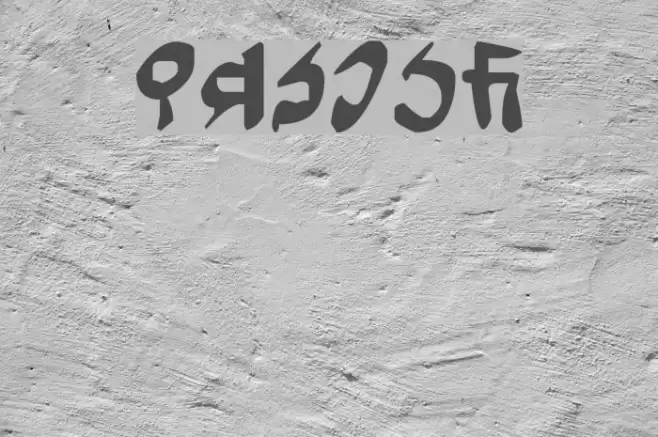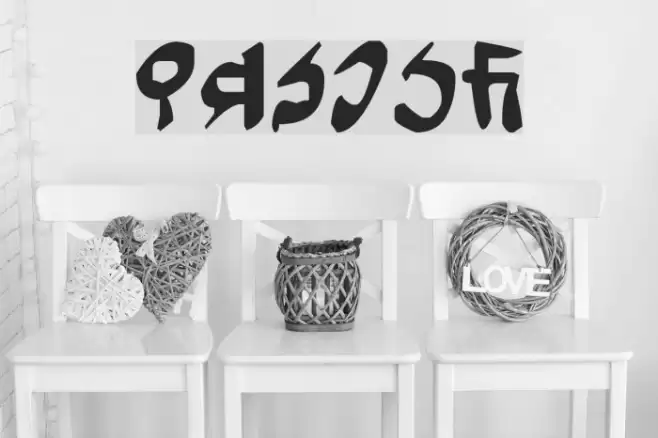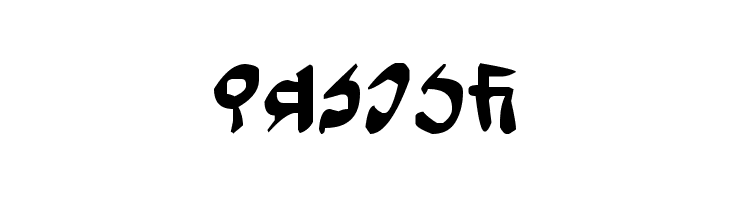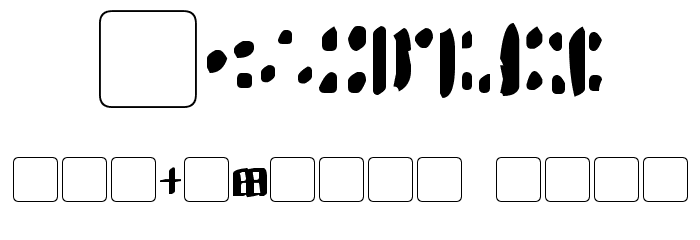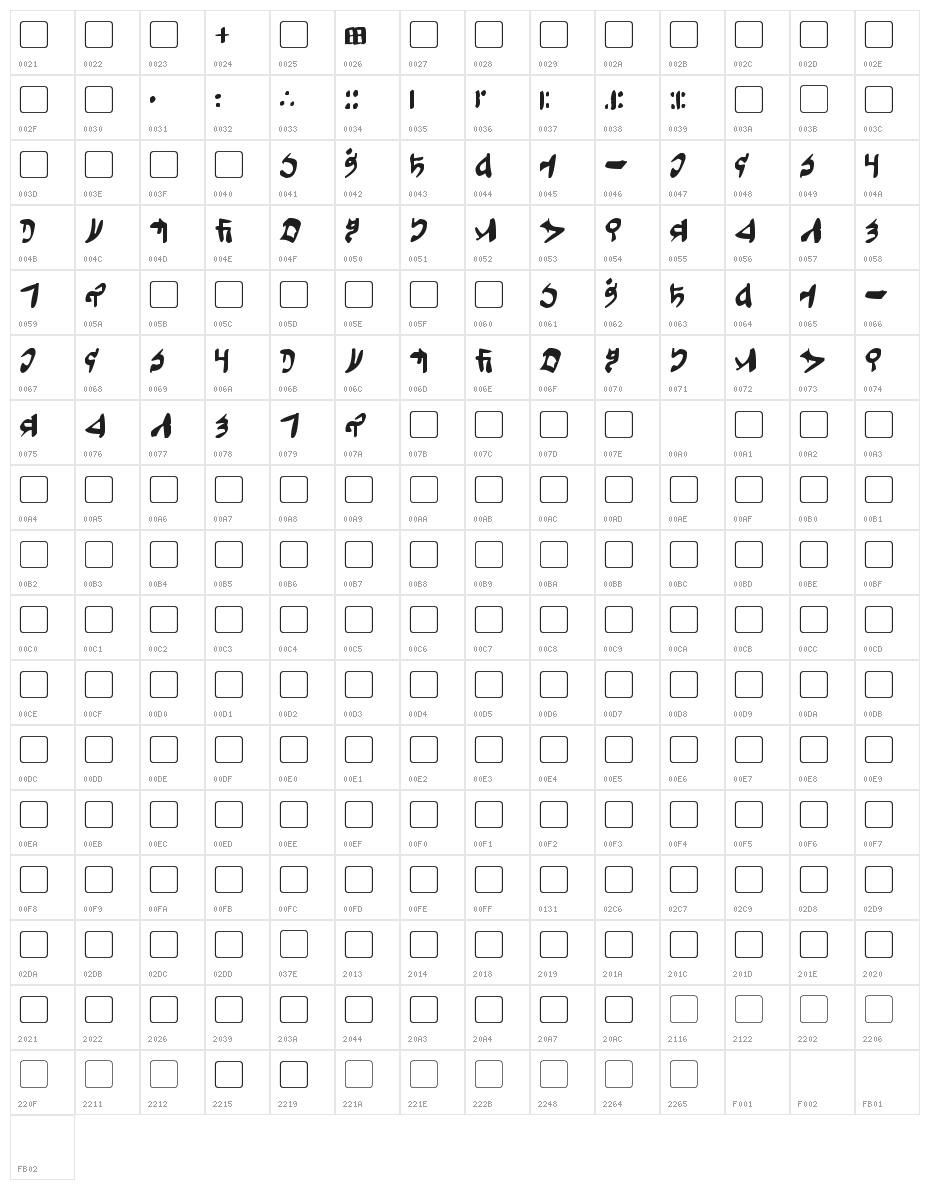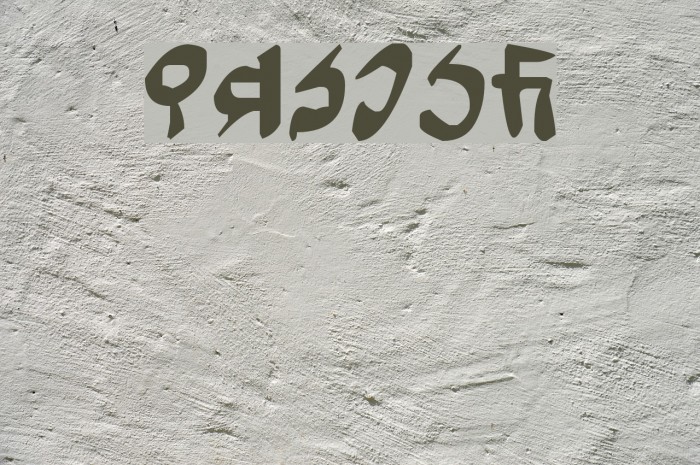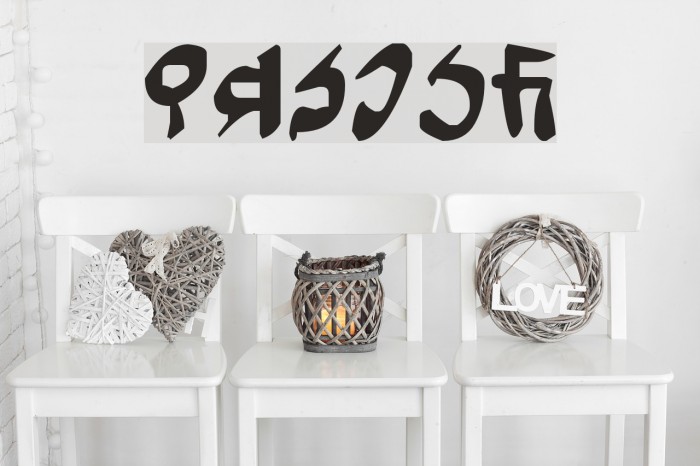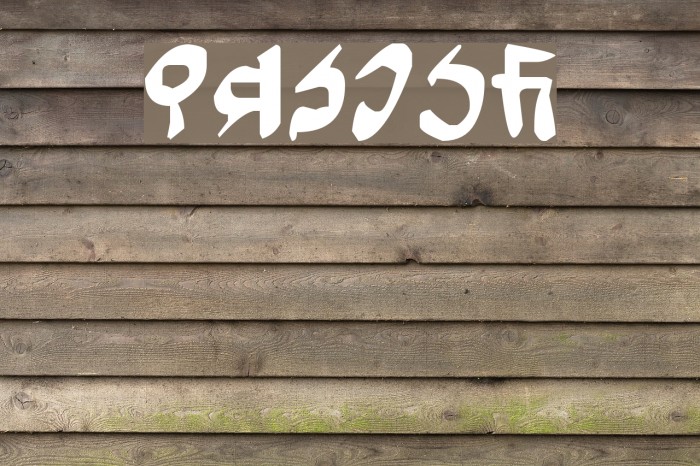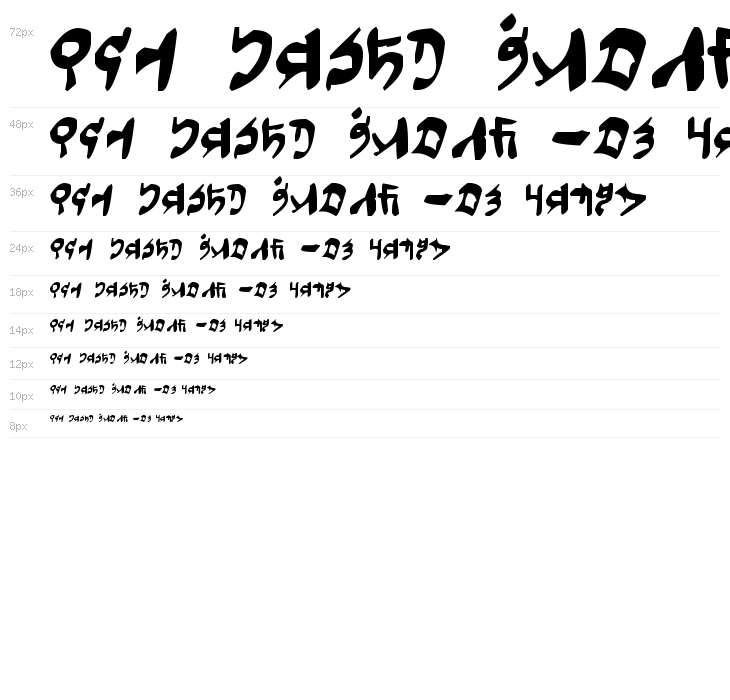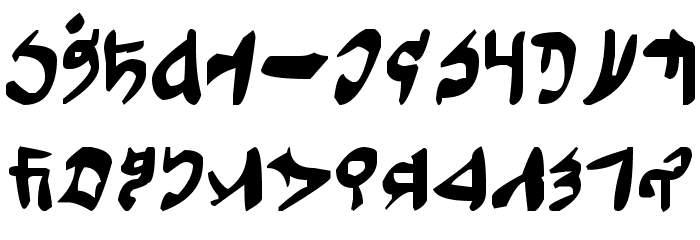
Tuigan Font
Tuigan Description
This font features a unique and abstract design, characterized by bold, angular strokes and a calligraphic style. The characters are highly stylized, with a strong emphasis on geometric shapes and sharp angles. The overall appearance is reminiscent of ancient scripts or fantasy languages, giving it a mysterious and exotic feel. The font lacks traditional letterforms, opting instead for a more artistic and interpretive approach. This makes it suitable for creative projects where a distinctive and unconventional look is desired.
A bold, angular, and abstract font with a calligraphic, fantasy-inspired style from Uncategorized fonts.
- Proposed Projects: Ideal for fantasy-themed designs, game interfaces, movie posters, or any project requiring a mysterious and exotic aesthetic.
- Overall Style: Decorative, Fantasy
- Use Case: Logos, Posters, Themed Events